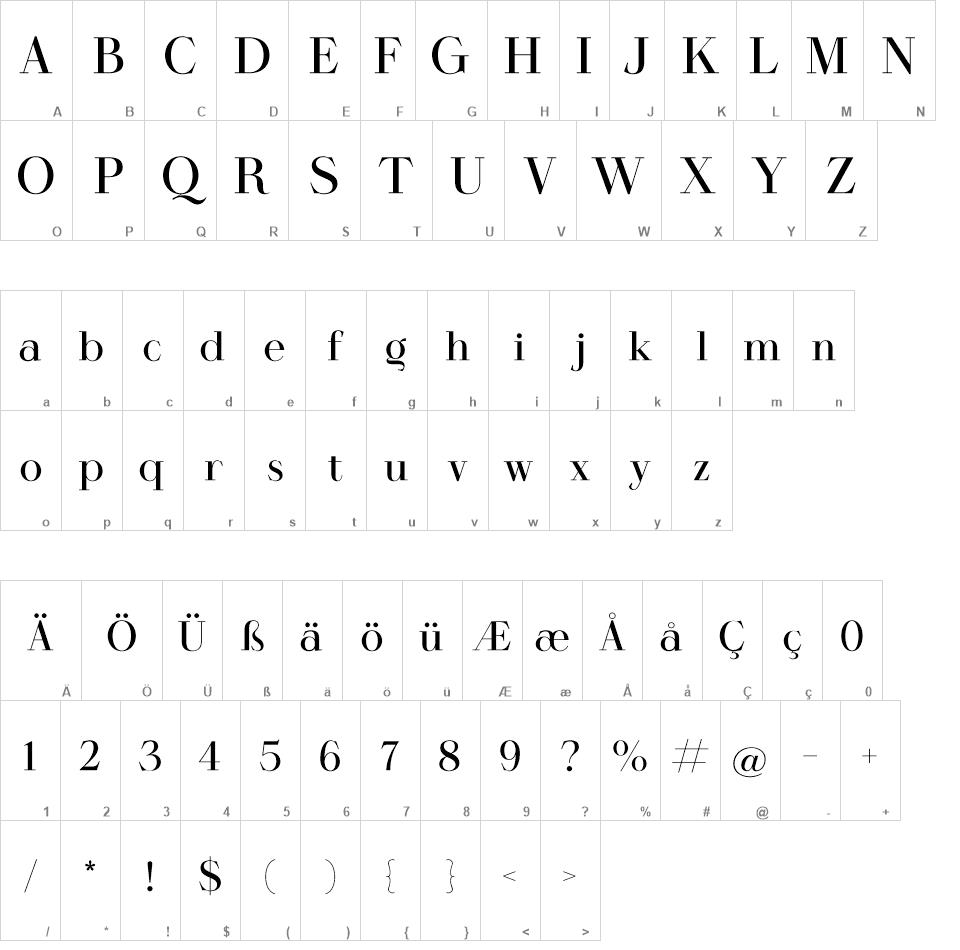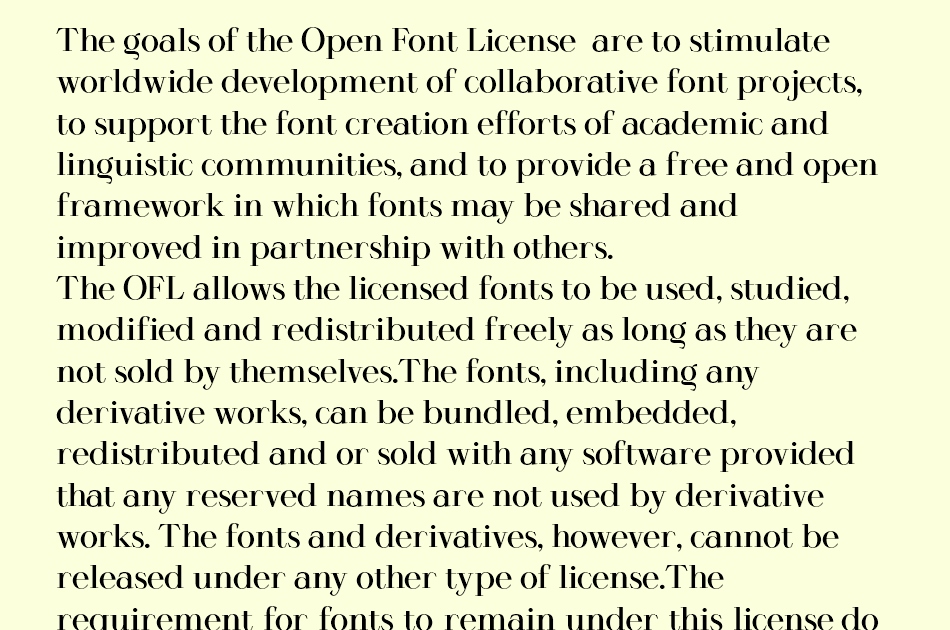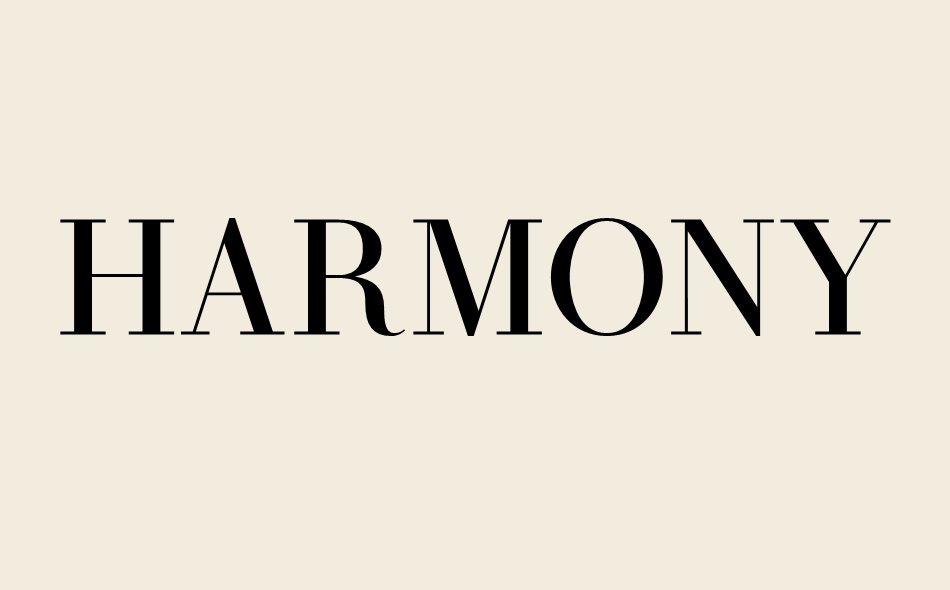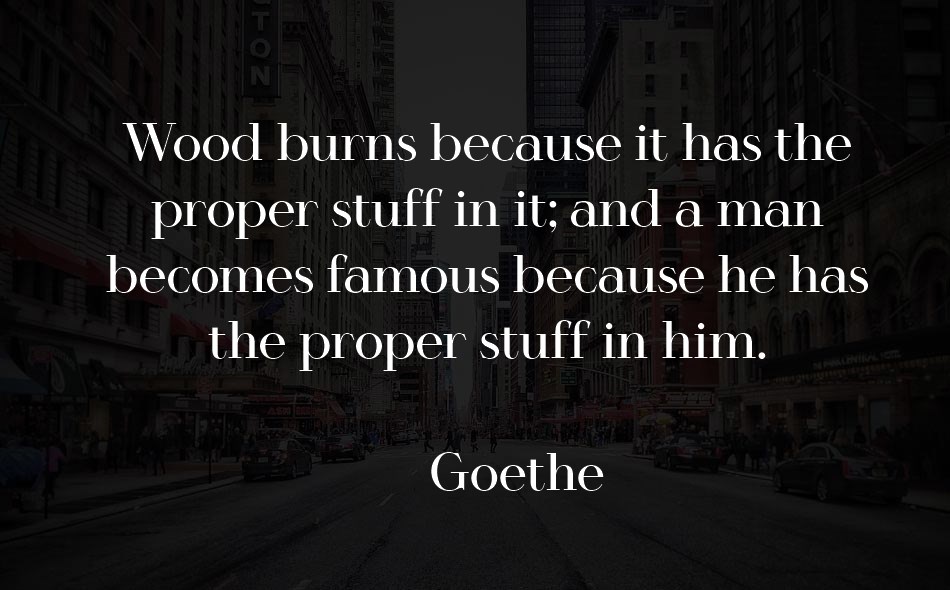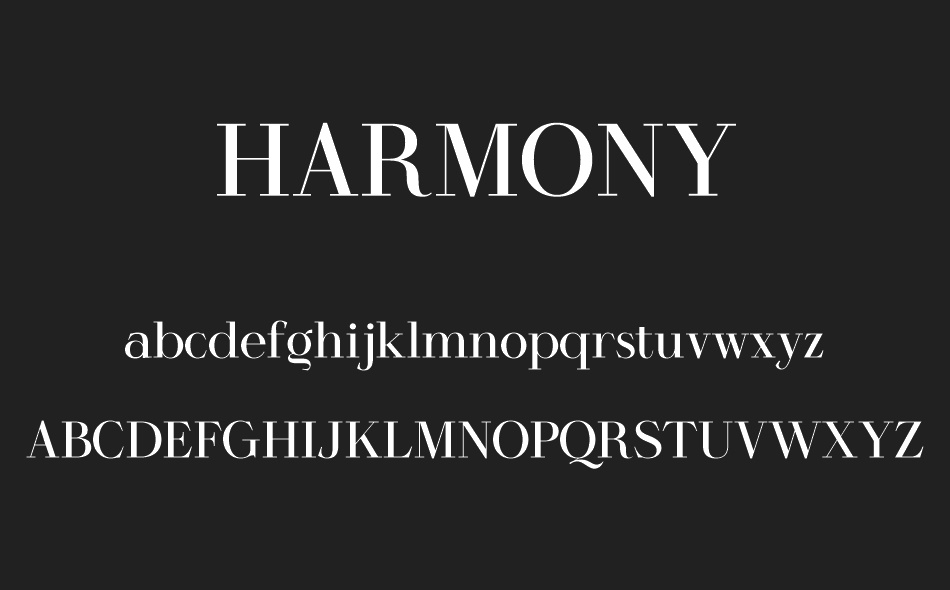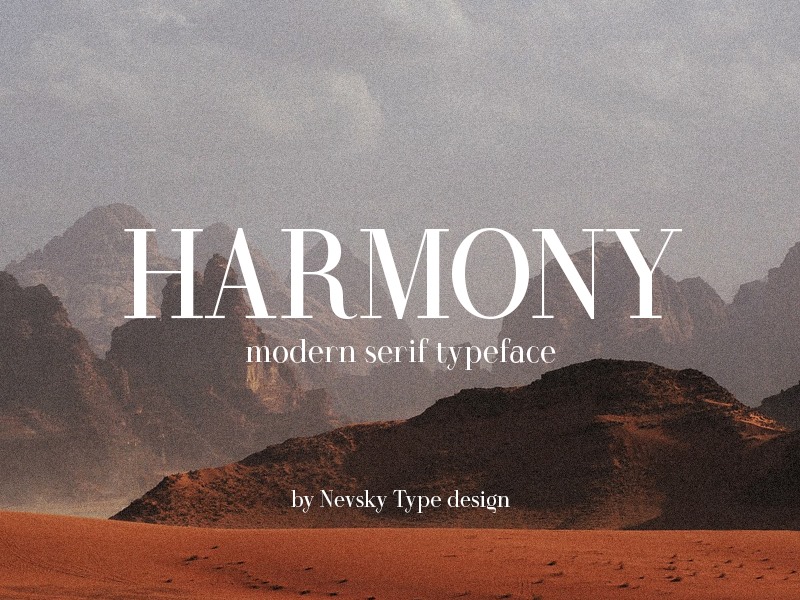
Harmony font
"HARMONY" is a new serif font, that will bring a touch of elegance to any project.
"HARMONY" will perfect for many project: invitations, postcards, posters, book covers, advertisements, website headers, logos, magazines, fashion, branding, photography etc.
"HARMONY" supports over 200 Latin-based languages.